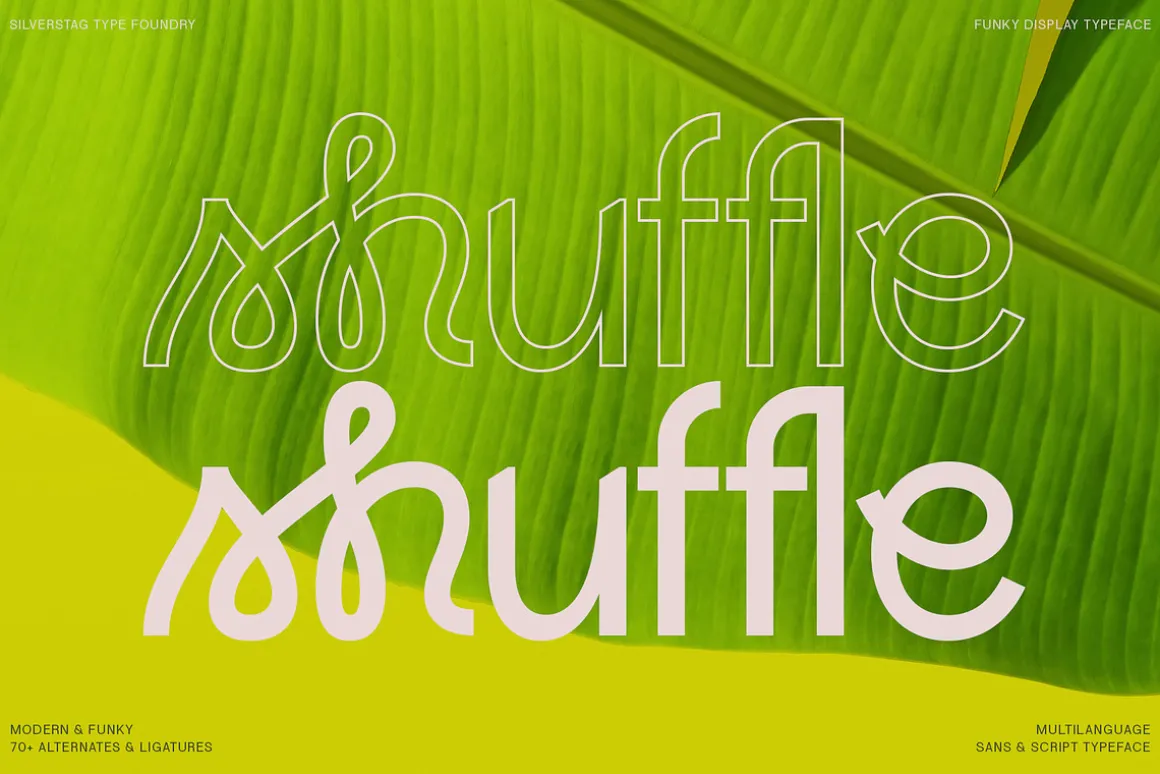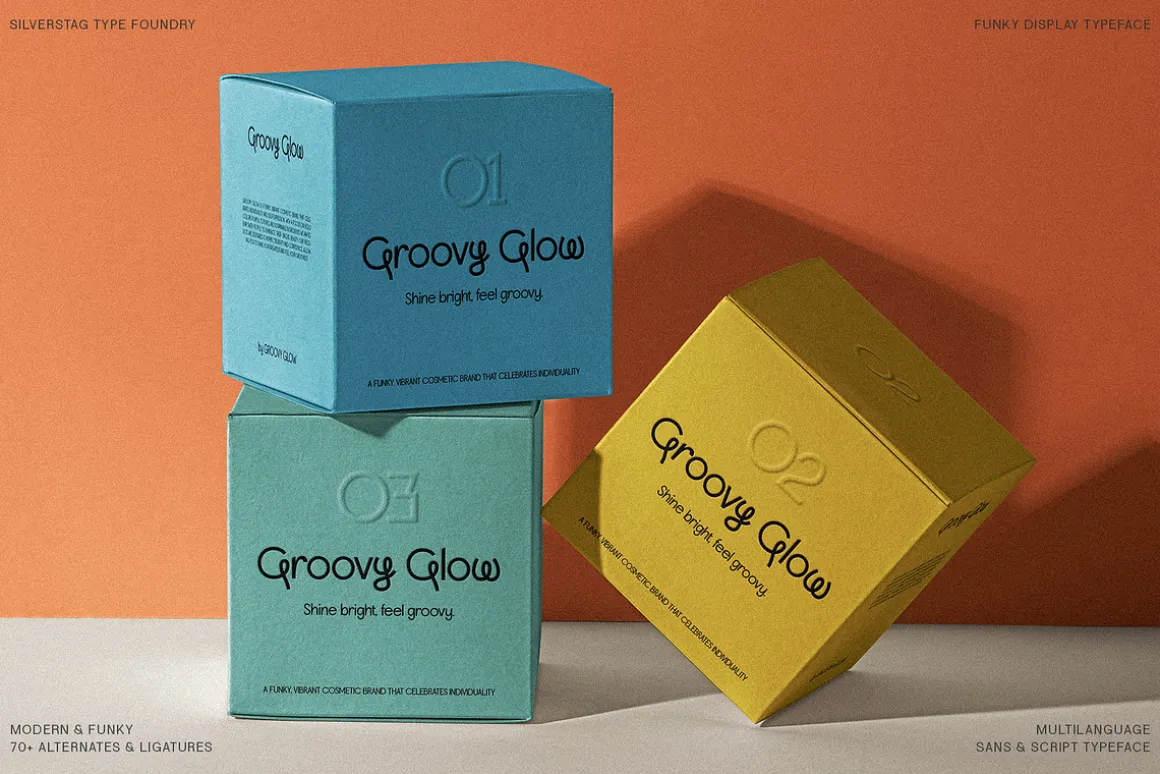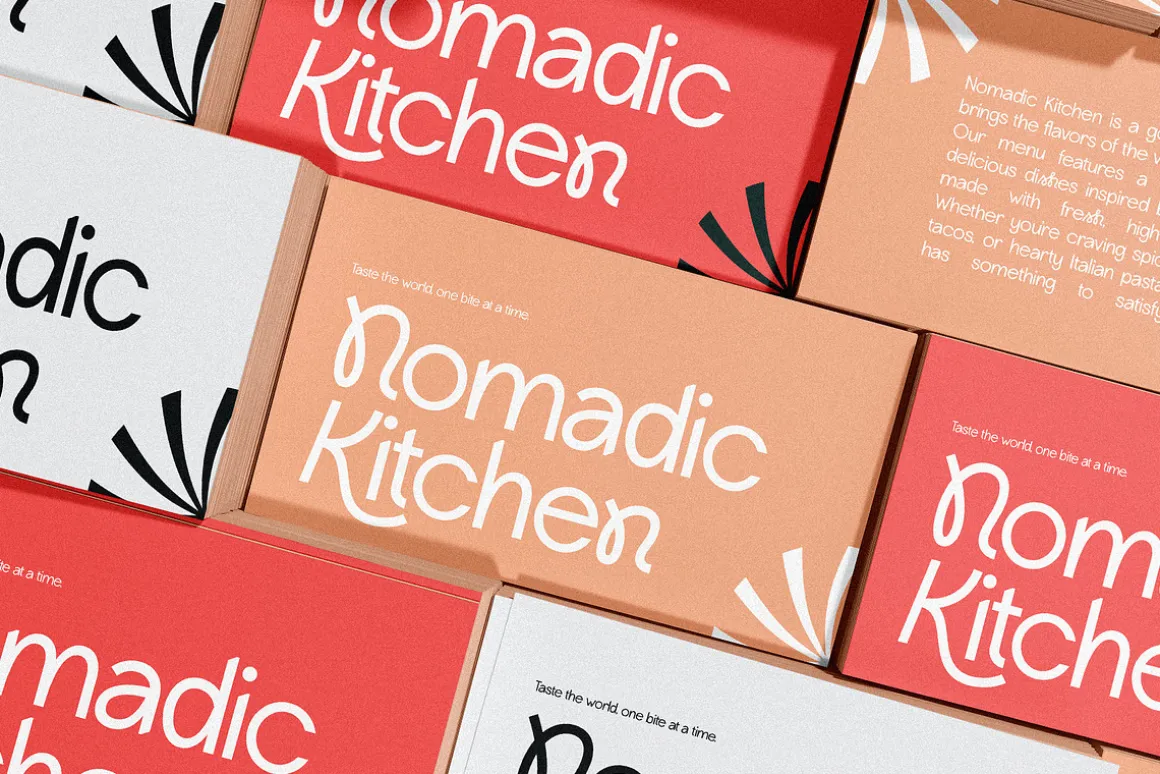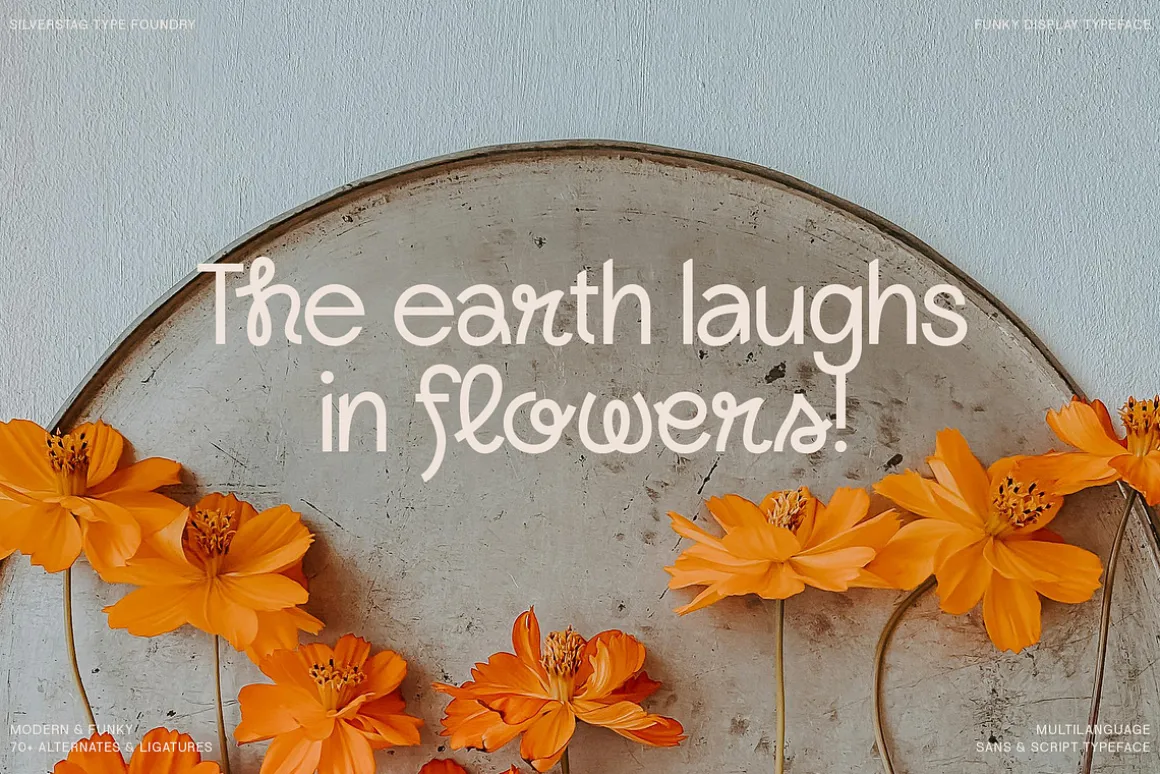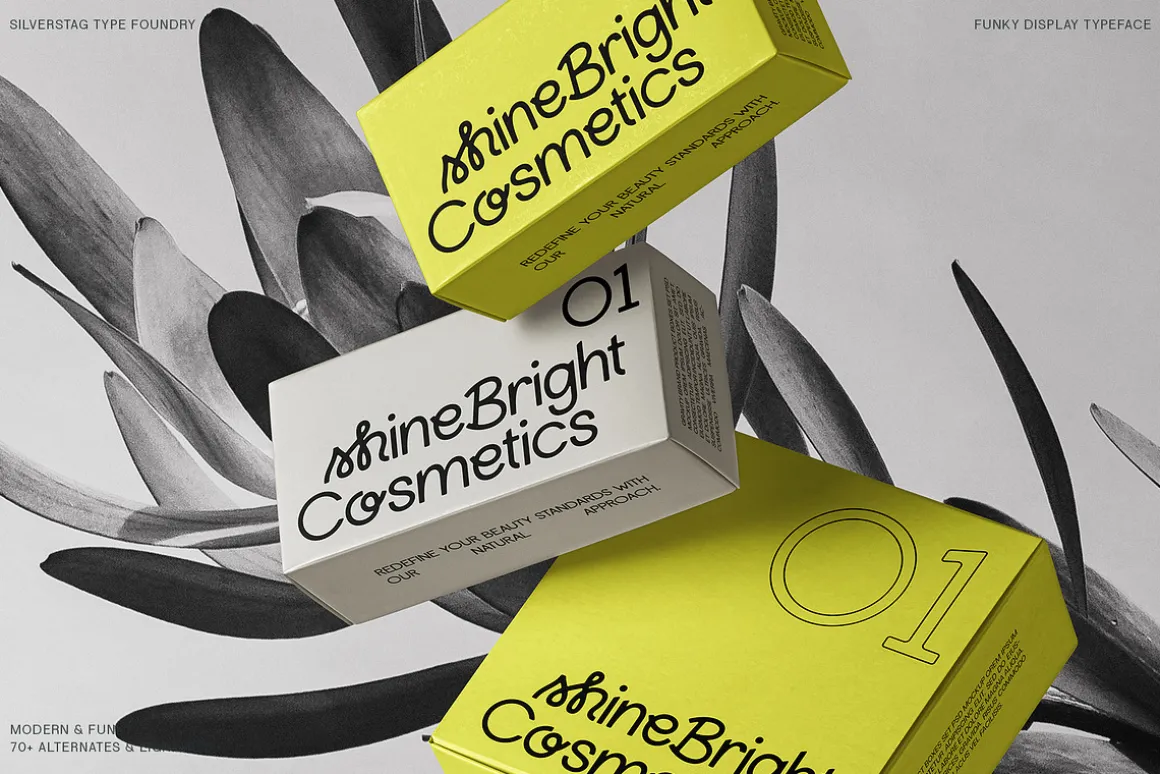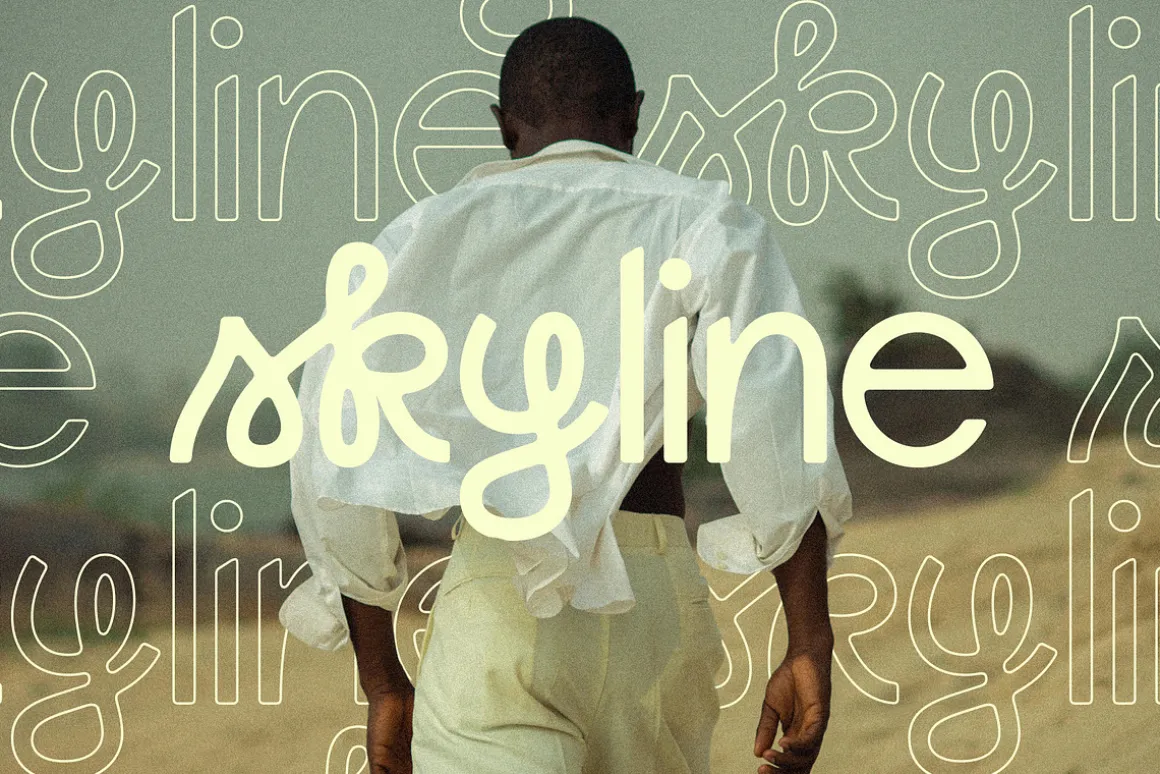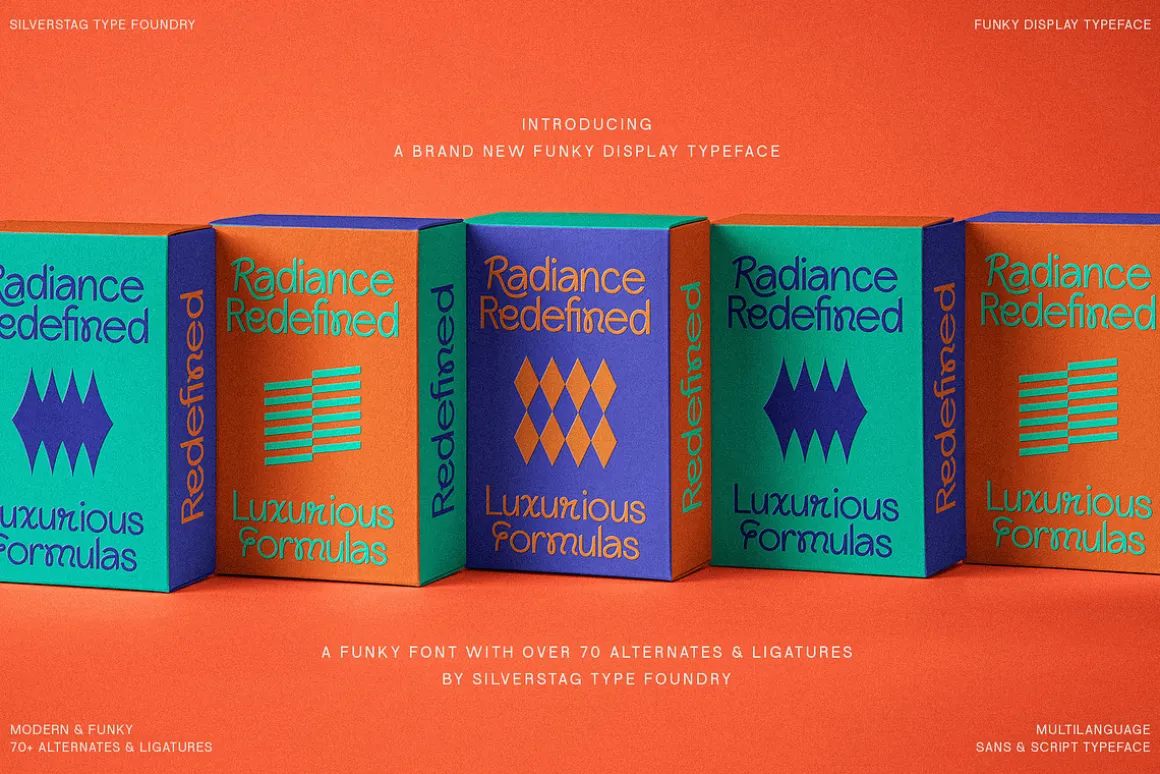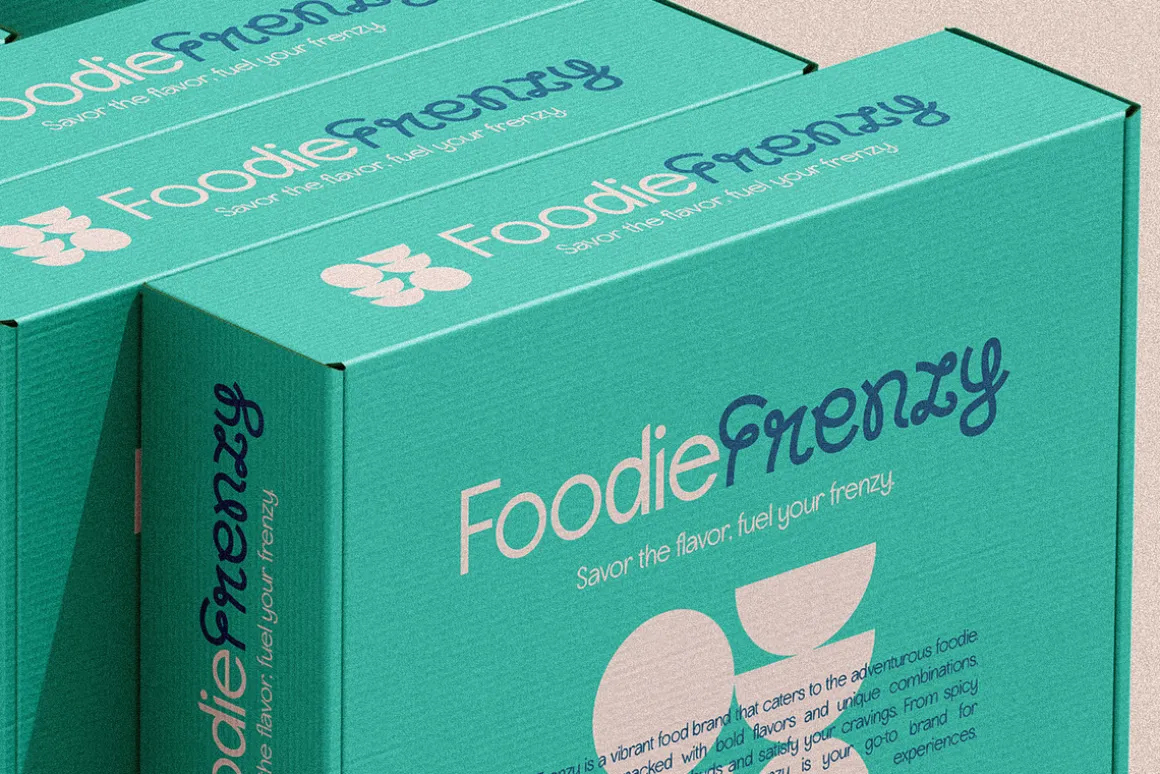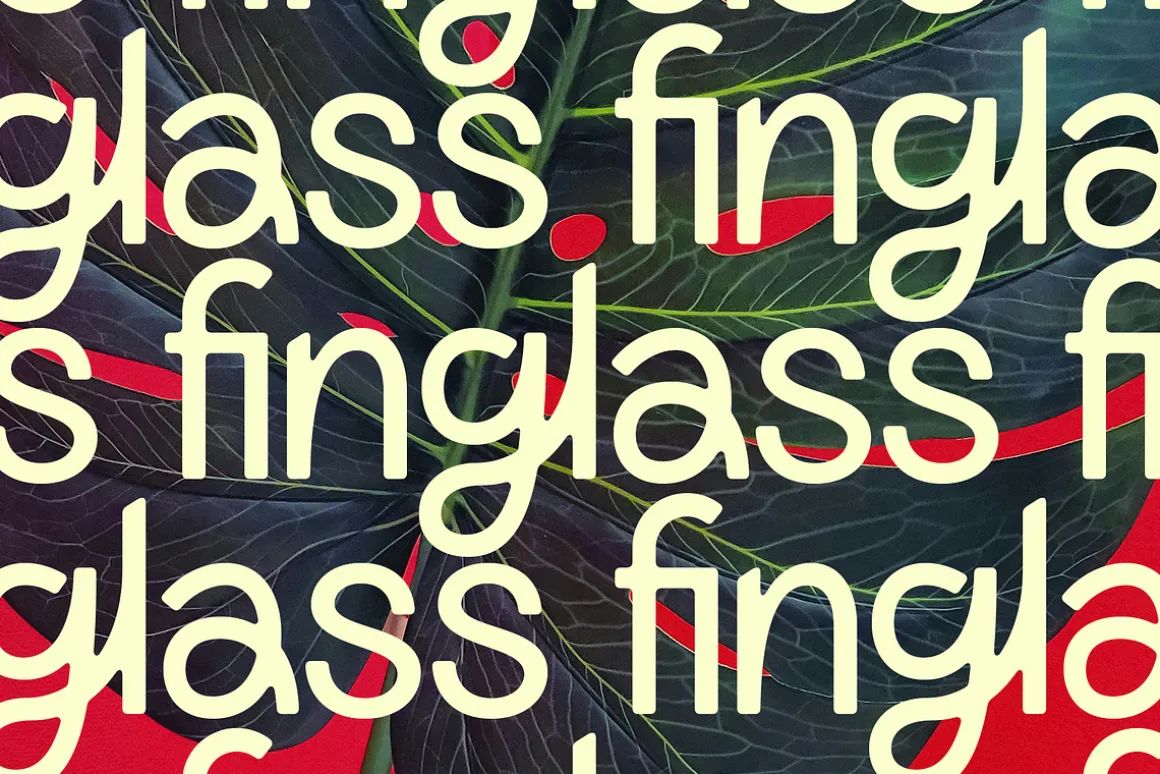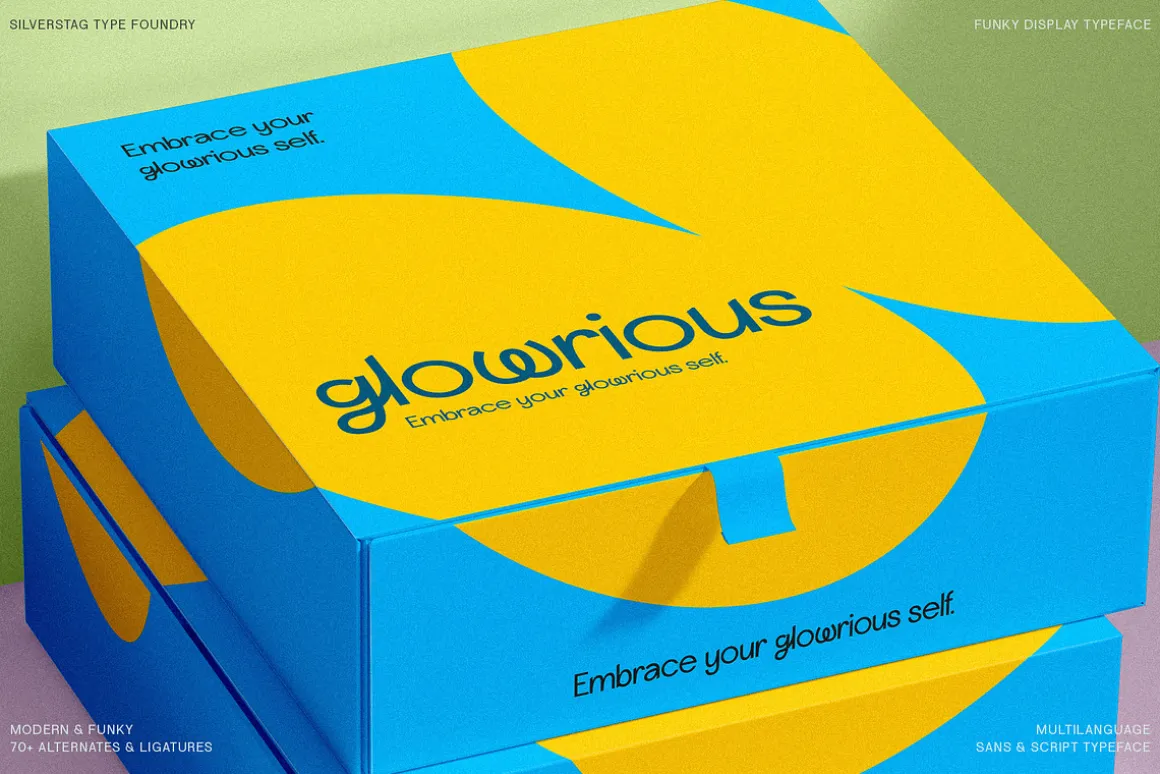
Introducing Lightshift: Illuminate Your Designs with Funky Flair
Lightshift is a playful and energetic display typeface that injects a burst of personality into any project. With its blend of sans-serif simplicity and script-inspired flourishes, Lightshift strikes the perfect balance between modern and retro, making it a versatile choice for a variety of creative applications.
Features:
- 4 Unique Styles: Explore Lightshift’s full range of expression with Regular, Round, Outline, and Round Outline variations. Each style offers a distinct flavor, allowing you to tailor the font to your specific design needs.
- 70+ Alternates & Ligatures: Unleash your creativity with an extensive collection of ligatures and alternate characters. Create unique and eye-catching word forms that add a touch of playful sophistication to your typography.
- Multilingual Support: With support for over 90 languages, Lightshift ensures your message reaches a global audience. Communicate effortlessly and effectively across cultures.
- Funky & Modern Aesthetic: Lightshift’s rounded shapes, thick strokes, and playful ligatures evoke a sense of fun and energy, making it ideal for projects that demand a bold and contemporary look.
- Versatile Applications: From eye-catching headlines and logos to social media graphics and product packaging, Lightshift shines in a variety of design contexts.
Unleash Your Creativity
Lightshift is more than just a font, it’s an invitation to experiment and express yourself. Mix and match the different styles, play with ligatures, and create typographic masterpieces that capture attention and leave a lasting impression.
Perfect for:
- Youthful and trendy brands
- Creative projects and designs
- Posters, flyers, and promotional materials
- Website headers and titles
- Social media graphics
- Packaging and merchandise
- And anything that needs a touch of funky flair!